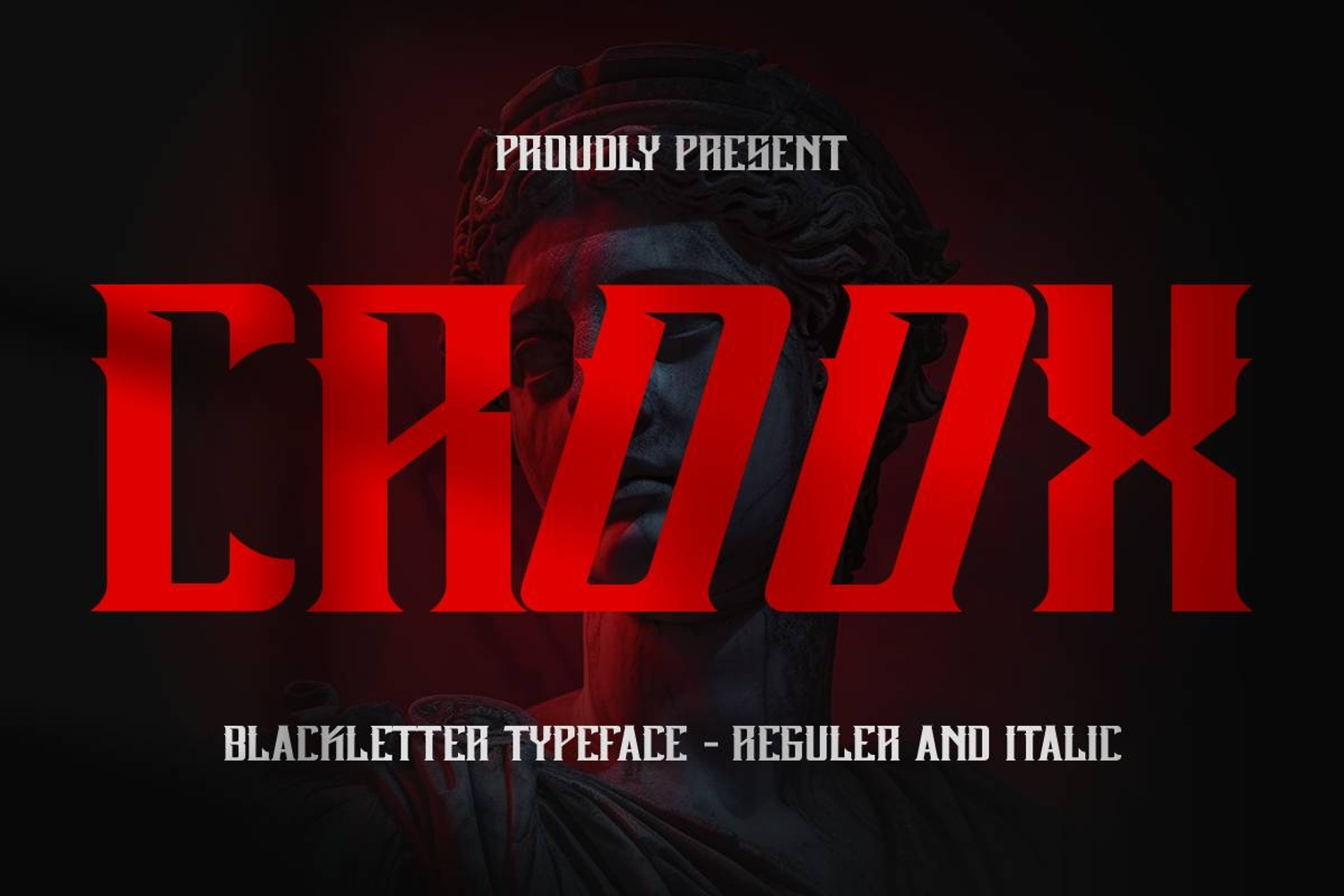
CROOX - Modern Blackletter Typeface
Bring a mysterious and elegant edge to your designs with CROOX, a powerful blackletter typeface that blends medieval mystery with sharp, modern aggression. Inspired by dark elegance and razor-sharp silhouettes, CROOX delivers an intense visual rhythm perfect for creating bold, atmospheric headlines that command instant attention.